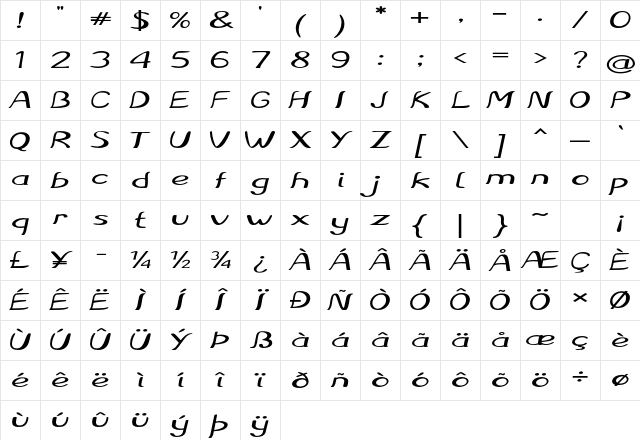
Windfall Extra-expanded Bold Free Font
Windfall Extra-expanded Bold
Style: Extra-expanded Bold
Windfall Family
Windfall Extra-expanded Bold
Windfall Extra-expanded Bold Font Preview
Windfall Extra-expanded Bold Uppercase Preview
Windfall Extra-expanded Bold Lowercase Preview
Windfall Extra-expanded Bold Numeric Preview
Windfall Extra-expanded Bold Character Map
Complete Windfall Extra-expanded Bold glyph index. Displaying only characters natively supported by Windfall Extra-expanded Bold font.
Windfall Extra-expanded Bold Character Map
Windfall Extra-expanded Bold Test Drive
Design Context for Windfall
Windfall is a composed and adaptable typeface that performs quietly and consistently across a wide range of design contexts. Its bold stroke weight gives it real presence on the page.